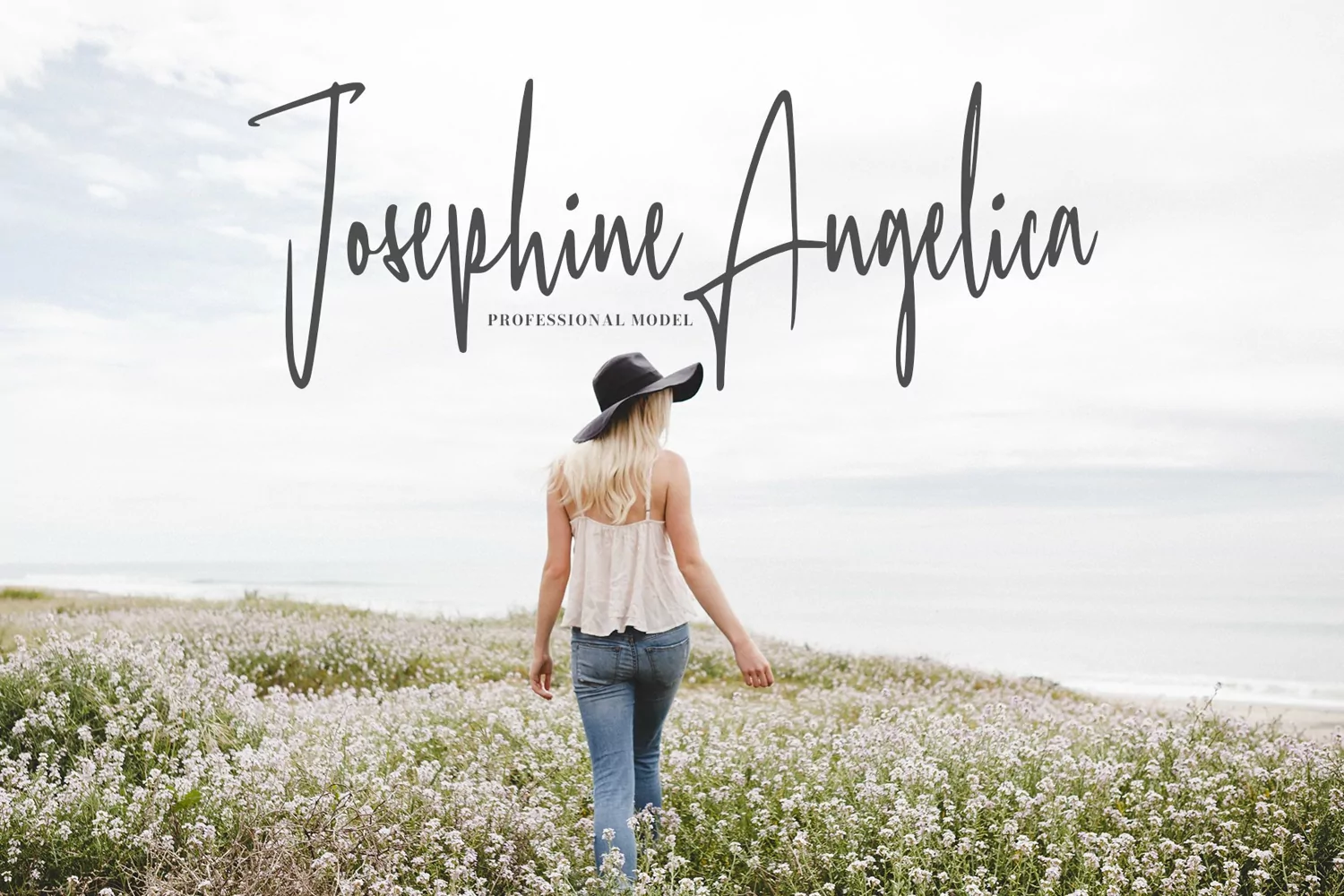
Butterfly is a signature script typeface. Perfect for display, poster, quotes, film, craft needs, book cover, business card, packaging, merchandise, branding, logo, logotype, header, title, and many more.